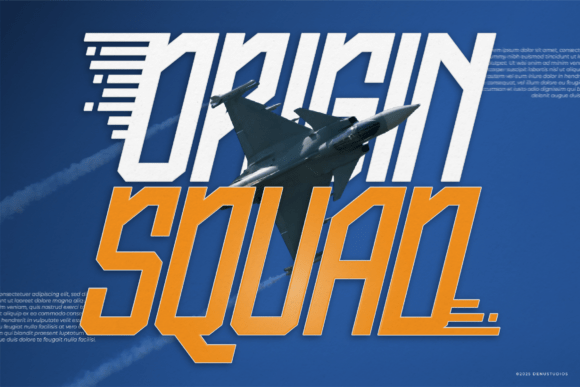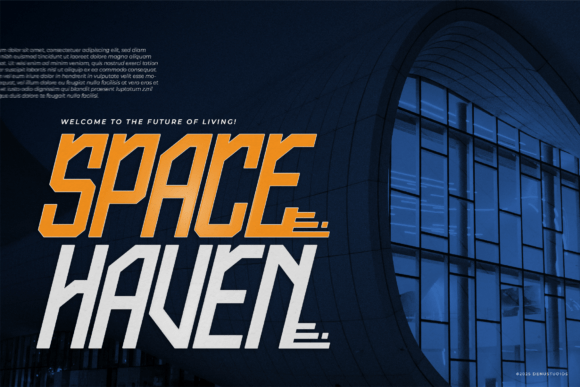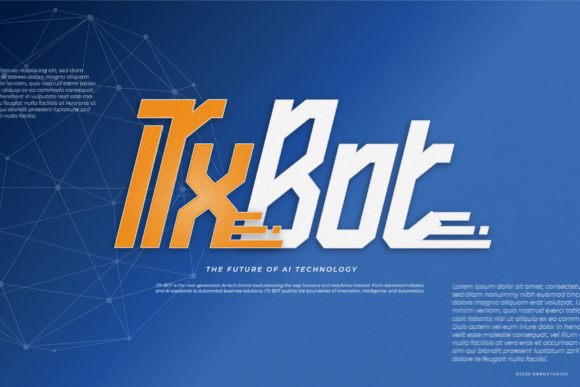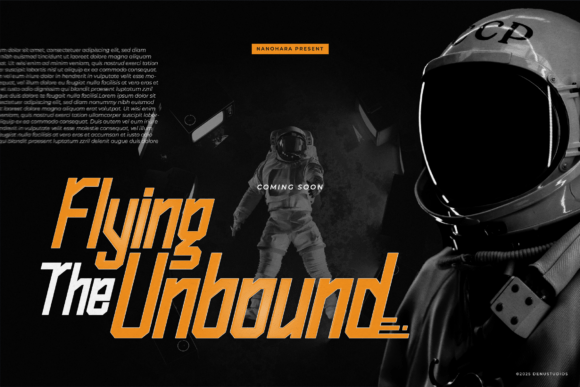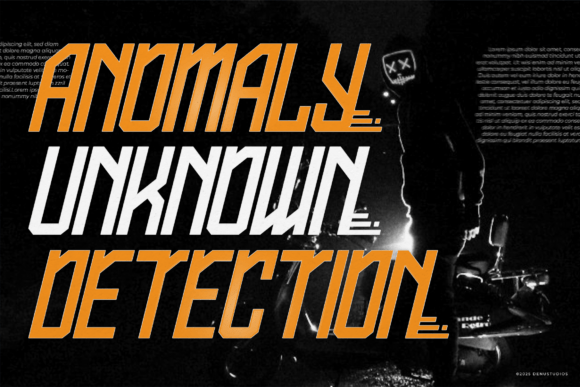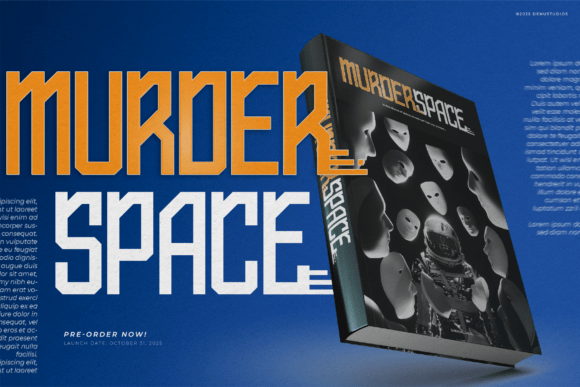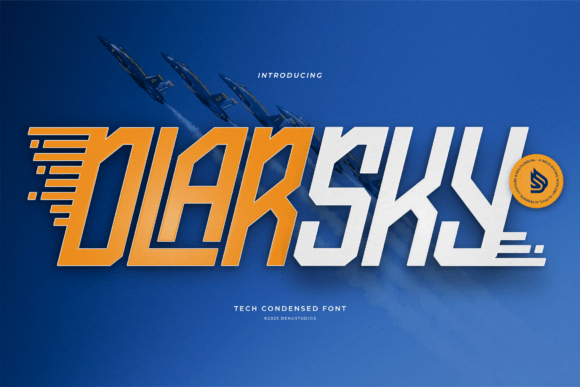
Dlar Sky Font: Elevate Your Designs with a Futuristic and High-Tech Aesthetic
In the realm of typography, fonts play a pivotal role in shaping the visual identity of a brand, product, or project. With the vast array of fonts available, selecting the right one can be a daunting task, especially for designers and crafters seeking to make a bold statement. This is where Dlar Sky Font comes into play – a dynamic, high-tech font that embodies a sleek and modern feel, perfect for those looking to infuse their creations with a futuristic and speedy vibe.
The Essence of Dlar Sky Font
Dlar Sky Font is characterized by its condensed and angular design, which sets it apart from more traditional fonts. This distinctive feature gives it a cutting-edge look that is instantly recognizable. The font’s sleek lines and modern aesthetic make it an excellent choice for a wide range of applications, from sports branding and tech projects to sci-fi themes and racing designs.
Key Features of Dlar Sky Font
- Condensed and Angular Design: The font’s compact and angular structure lends itself to a futuristic appearance, perfect for projects that require a dynamic and high-tech feel.
- High-Tech Aesthetic: Dlar Sky Font is designed to evoke a sense of speed and innovation, making it ideal for tech-related projects and brands looking to convey a forward-thinking approach.
- Versatility: Its unique design allows it to be versatile, suitable for various applications including sports branding, sci-fi themes, racing designs, and more.
- Legibility: Despite its condensed nature, Dlar Sky Font maintains a high level of legibility, ensuring that messages are conveyed clearly and effectively.
Applications of Dlar Sky Font
The versatility of Dlar Sky Font makes it suitable for a multitude of design projects. Here are some of the key areas where this font truly shines:
- Sports Branding: For sports-related brands and events, Dlar Sky Font offers a dynamic and energetic feel, perfect for capturing the spirit of competition and athleticism.
- Tech Projects: Tech startups, software launches, and innovative gadgets can all benefit from the font’s high-tech and futuristic vibe, conveying a sense of innovation and cutting-edge technology.
- Sci-Fi Themes: In the realm of entertainment, Dlar Sky Font is a great fit for sci-fi movies, games, and literature, adding a touch of futurism and otherworldliness.
- Racing Designs: For racing teams, events, or related marketing materials, the font’s association with speed and dynamism makes it a compelling choice.
Tips for Using Dlar Sky Font
To maximize the impact of Dlar Sky Font in your designs, consider the following tips:
- Pair with Complementary Fonts: While Dlar Sky Font can stand alone, pairing it with more rounded or serif fonts can create a balanced and visually appealing contrast.
- Experiment with Colors: The font’s sleek design works well with bold and bright colors, but also consider metallic or neon effects to enhance its futuristic appeal.
- Consider Context: Ensure that the font’s style aligns with the project’s tone and audience. Dlar Sky Font’s dynamic feel is perfect for youthful and innovative contexts.
Dlar Sky Font is a powerful tool for designers and crafters looking to imbue their projects with a sense of dynamism, futurism, and high-tech sophistication. Its unique blend of condensed and angular design elements makes it a standout choice for a variety of applications. By incorporating Dlar Sky Font into your design repertoire, you can elevate your creations, making them more engaging, memorable, and impactful. Whether you’re working on sports branding, tech projects, sci-fi themes, or racing designs, Dlar Sky Font is poised to take your visual identity to new heights.